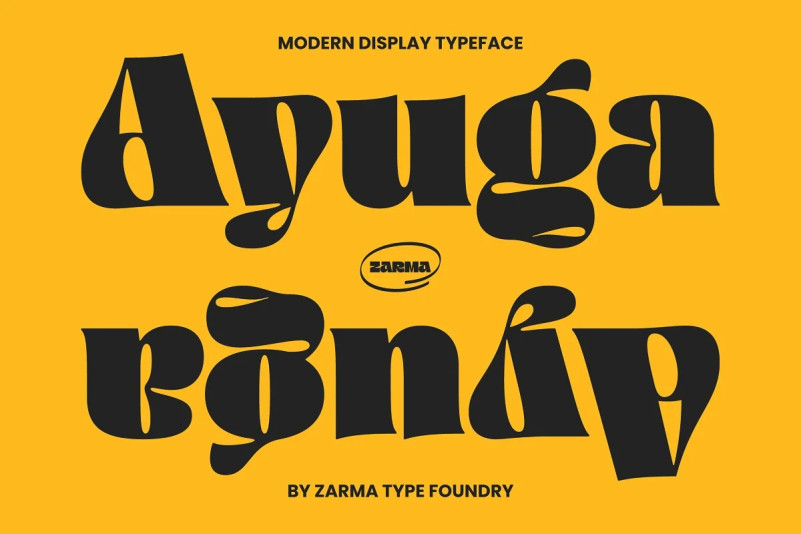
Ayuga Font
Introducing Ayuga Display Font, a display typeface inspired by the retro and psychedelic typefaces out there. Ayuga is definitely bold and thic enough to make your design stand out from the crowd.